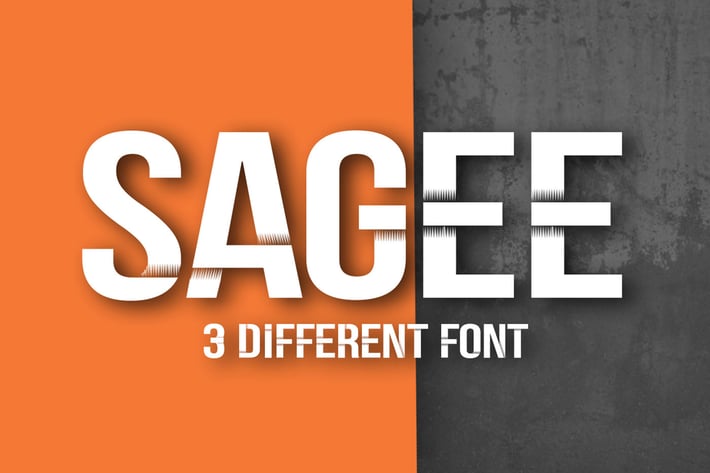
Sagee 3 Font
Sagee a a font that is very fresh and unique with 3 different style, Sagee Regular, Sagee Blade & Sagee Poly. Sagee it’s perfect for namecard, poster, logo, magazine, cover, banner, tshirt and headers, or even large-scale artwork.